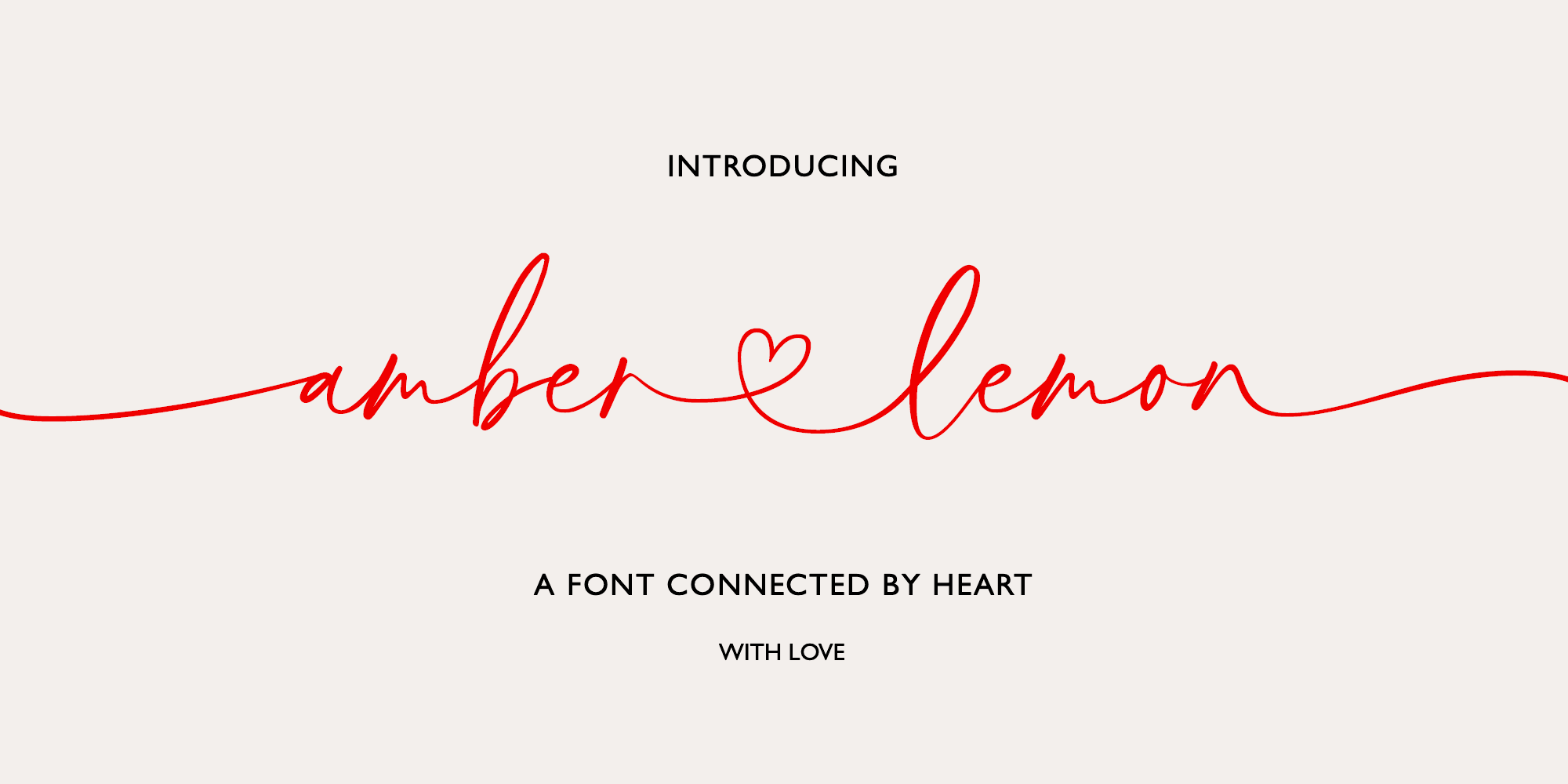
Amber Lemon Font is perfect for citrus beverage branding, summer festival graphics, tropical restaurant menus, fresh juice bar signage, sunny cafe logos, organic fruit packaging, vitamin supplement designs, and vibrant designs that require zesty, refreshing citrus energy and sunshine aesthetics.
This font is exciting because it radiates the bright, energizing warmth of golden amber sunlight combined with the fresh, tangy zest of ripe lemons through its cheerful letterforms. The invigorating character design captures the essence of summer freshness and natural vitality, making it perfect for brands seeking to convey health, energy, and refreshing natural goodness.
Amber Lemon Font belongs to the cheerful display font family, featuring citrus-inspired styling and sunshine elements that enhance its appeal for food, beverage, and wellness-focused design applications.
Whether you're creating fresh beverage branding or sunny lifestyle graphics, Amber Lemon Font Free Download delivers maximum zest and sunshine appeal. This typeface perfectly balances natural freshness with vibrant energy, making it essential for designers working on health-conscious projects that celebrate natural vitality and summer joy. The font's radiant presence works beautifully in food packaging, wellness communications, and seasonal promotions, providing excellent readability while maintaining its citrusy character that transforms any design with natural sunshine and creates refreshing brand experiences across all media platforms and healthy lifestyle communications.